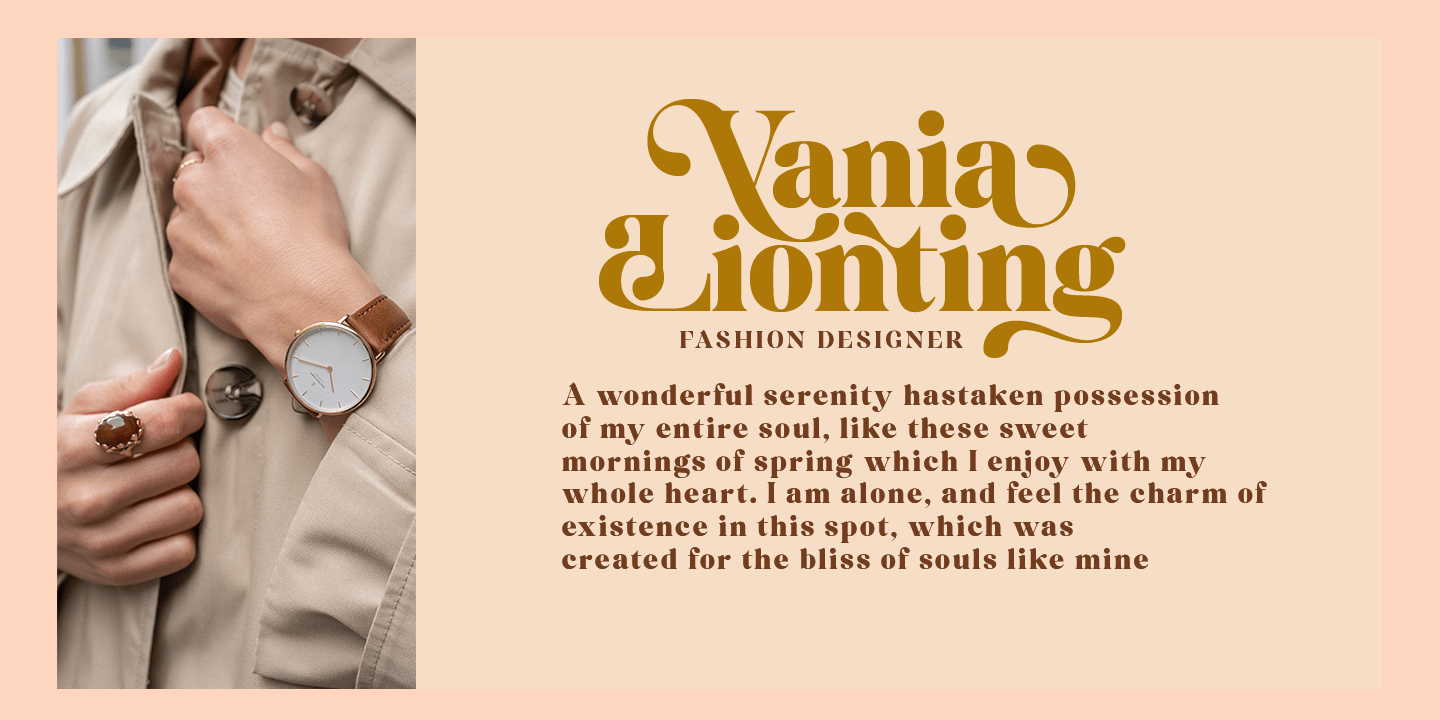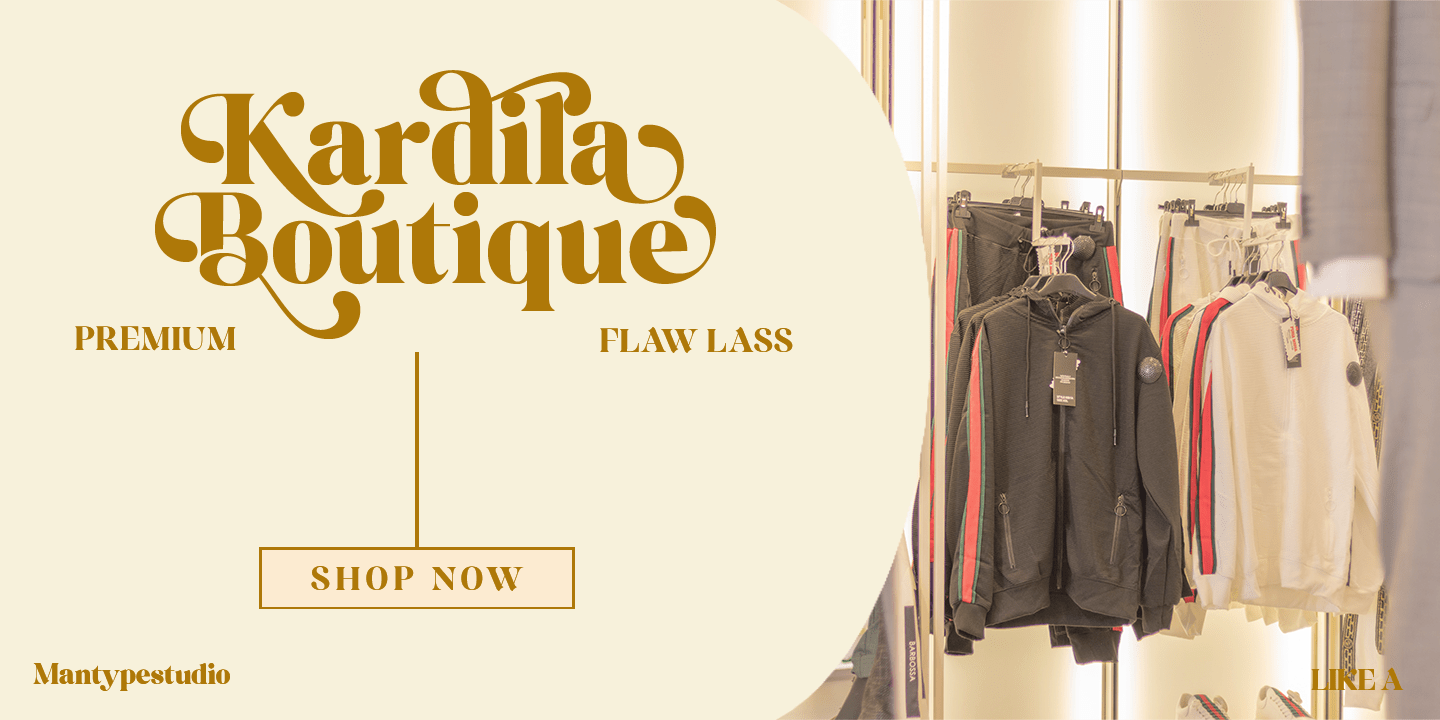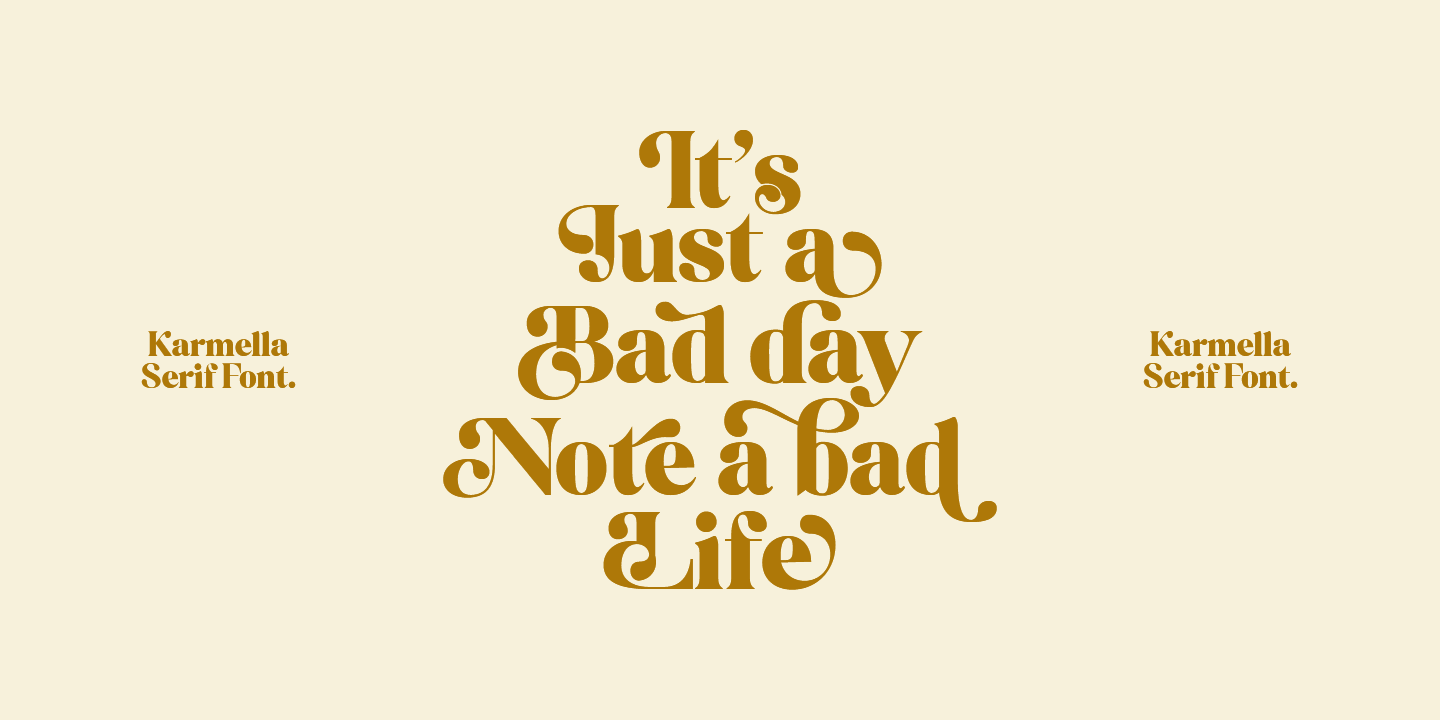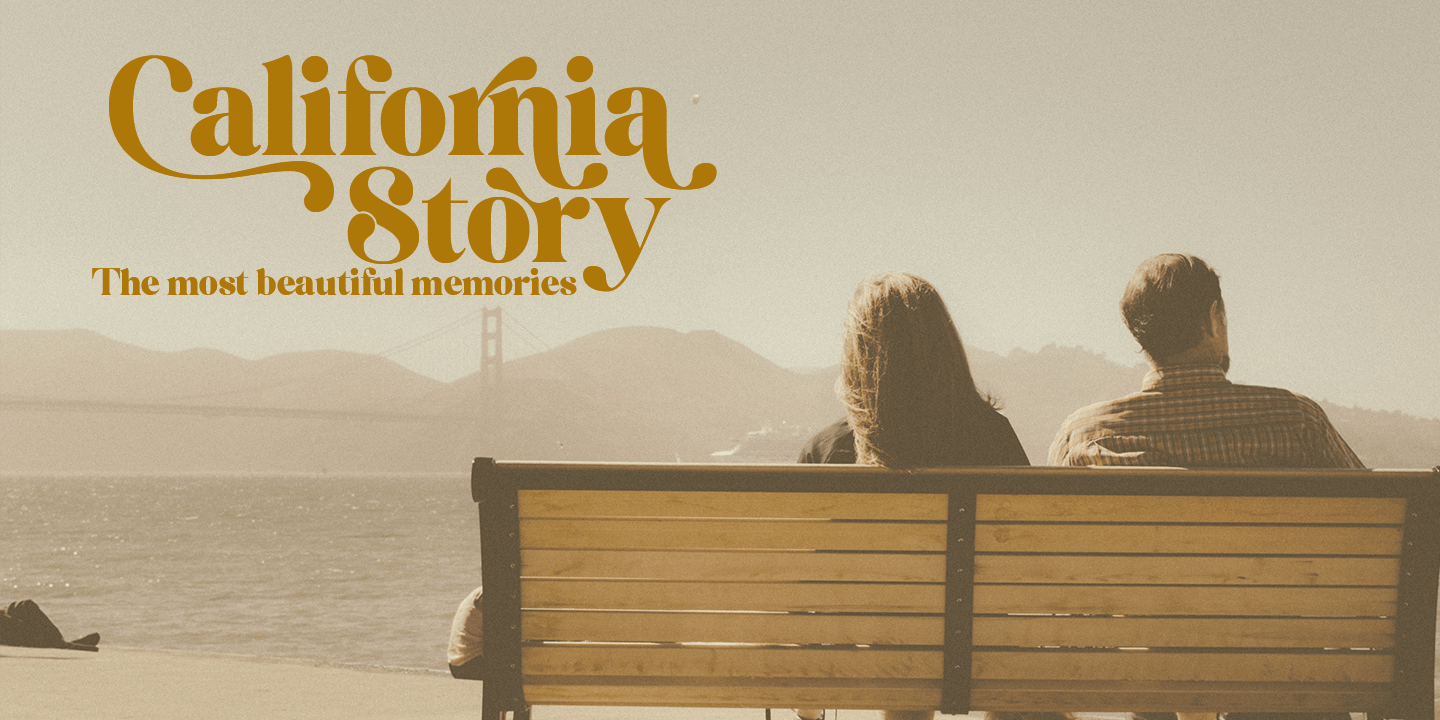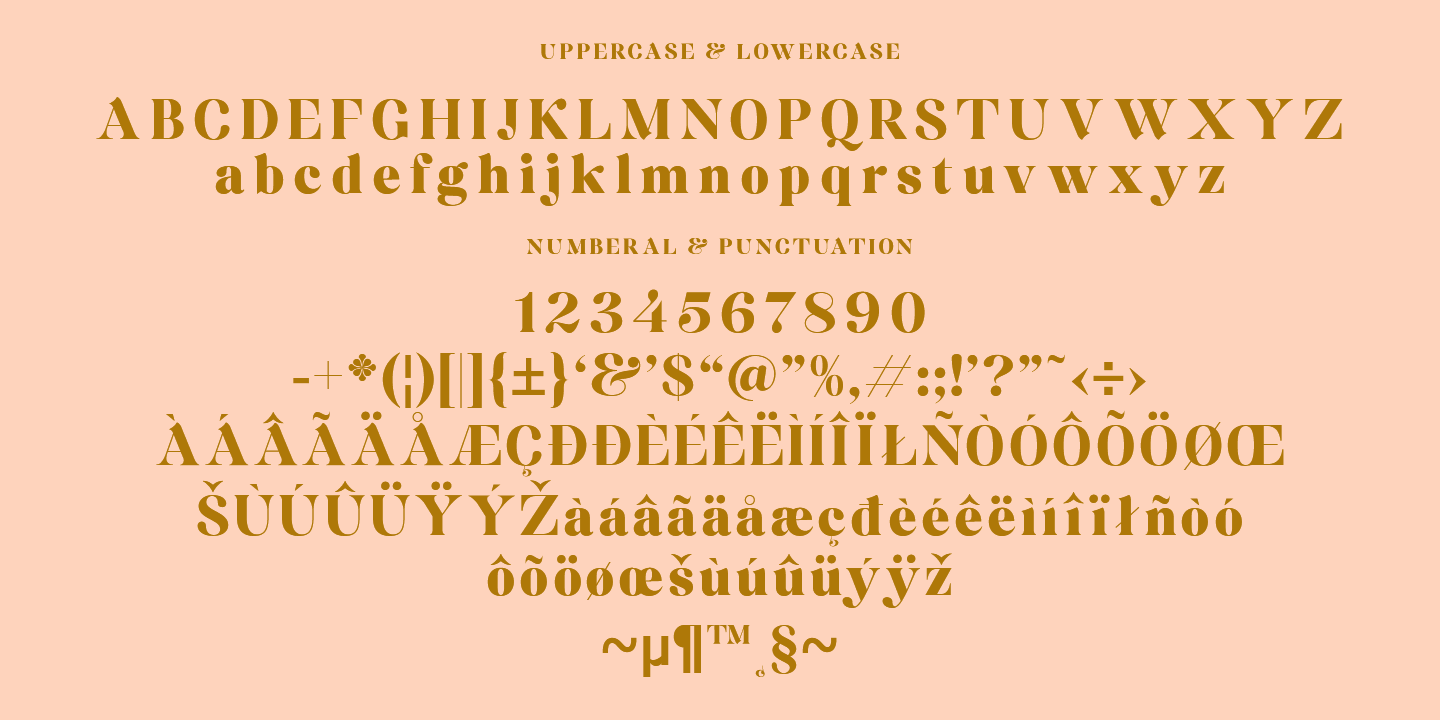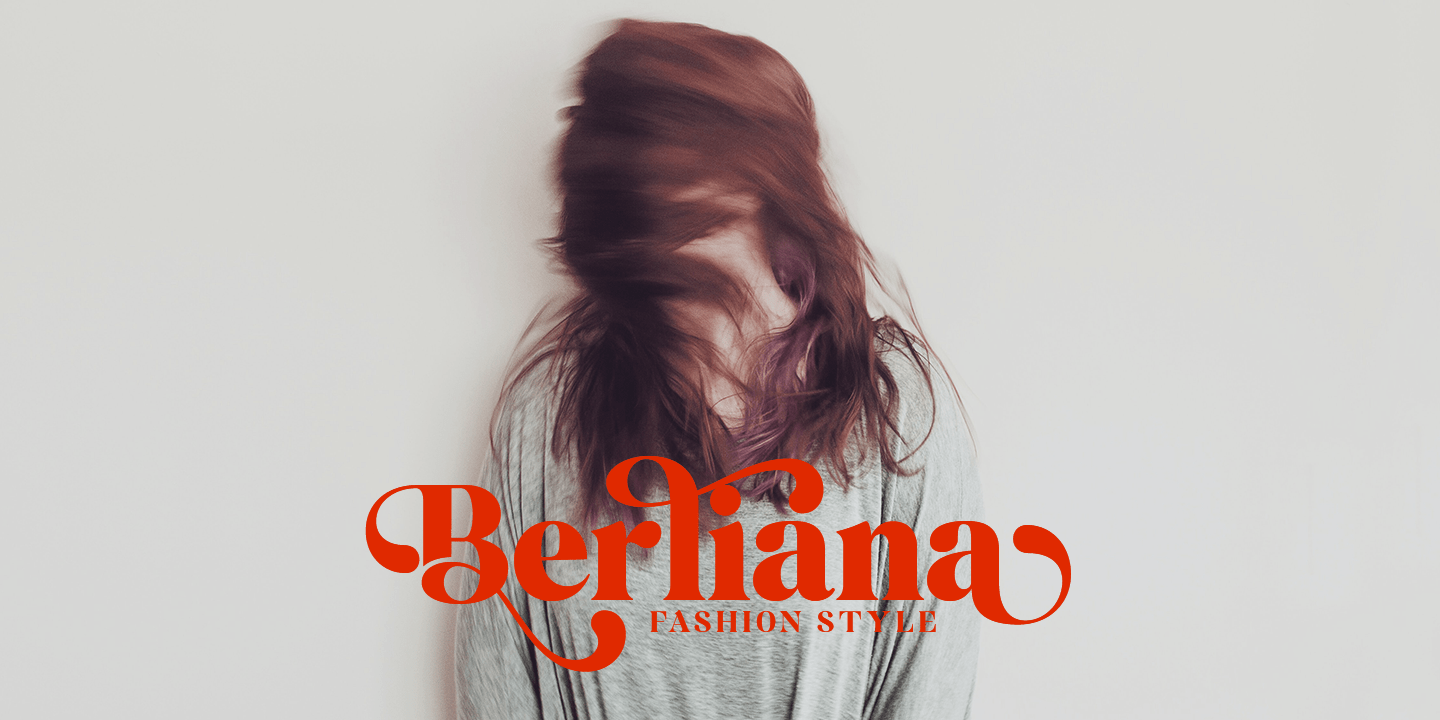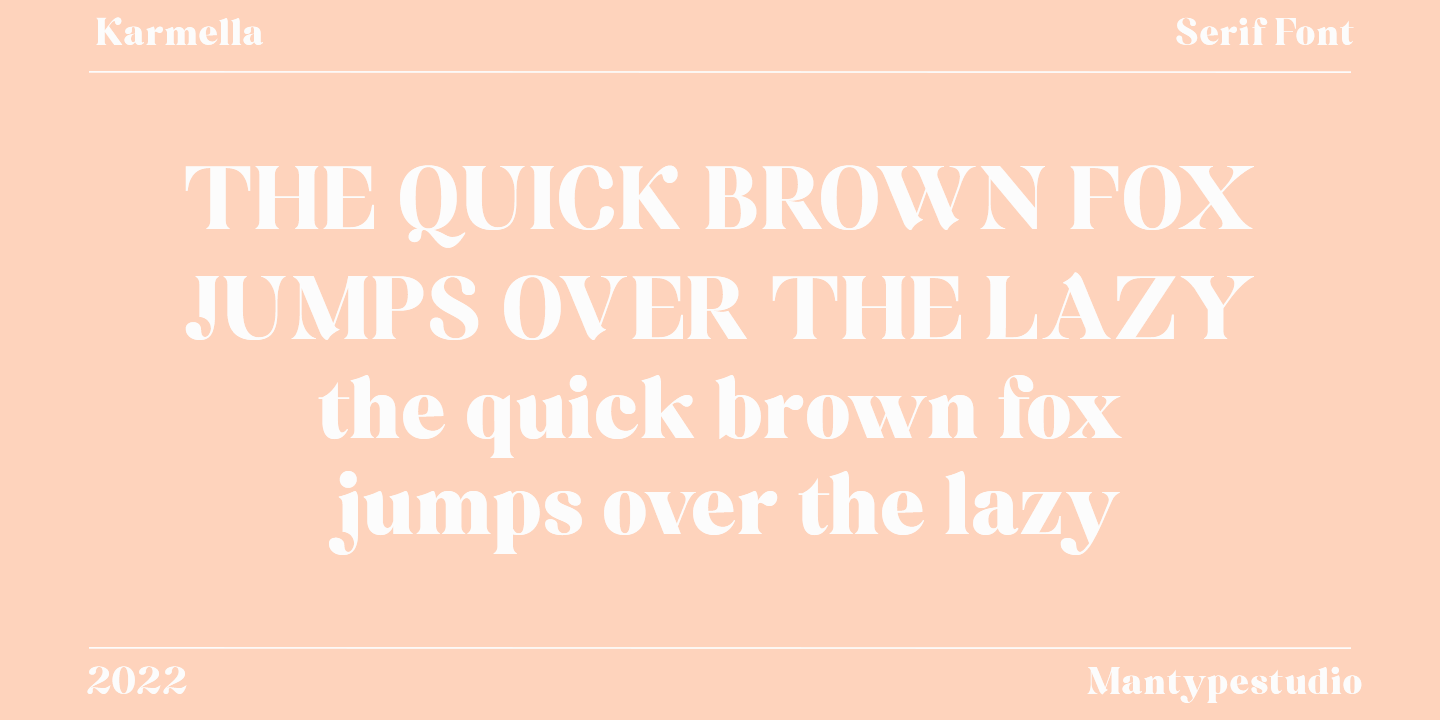
Karmella Regular
1 Font Family by Mantype Studio
Karmella is another serif font inspired by bold typefaces, it comes with many alternatives and ligatures making this font more stylish with a modern style. This font is suitable for headings, logotypes, posters, and much more.